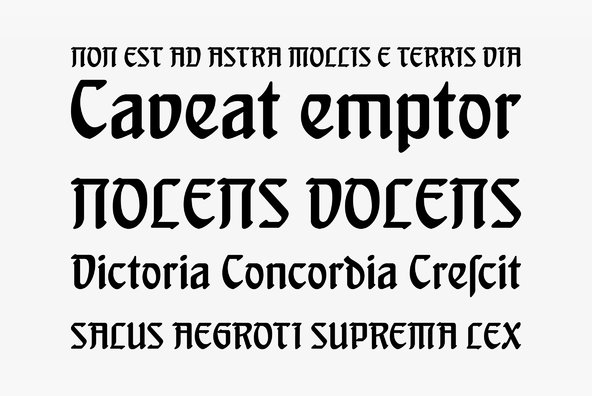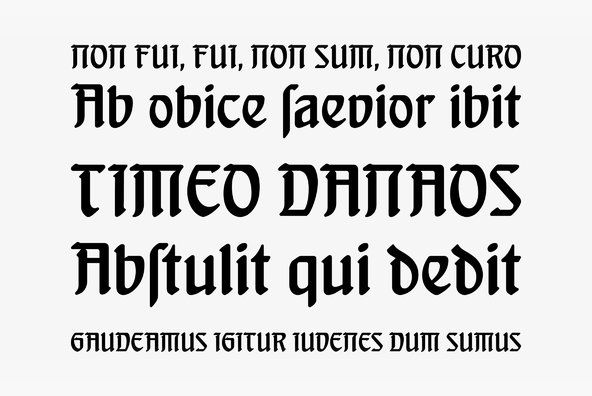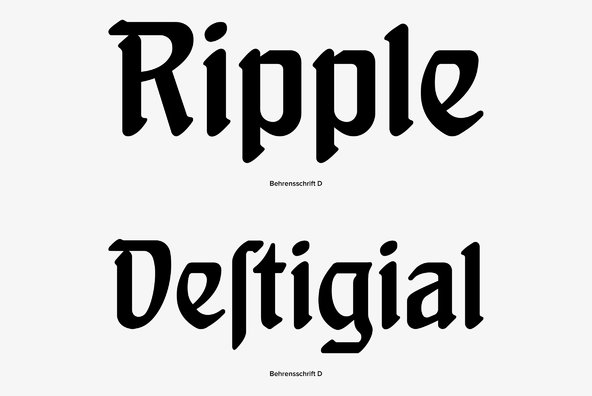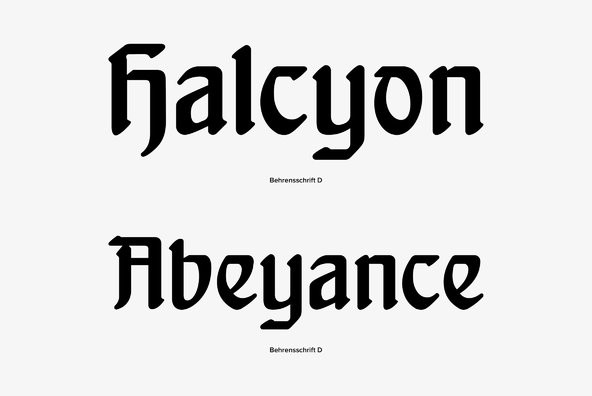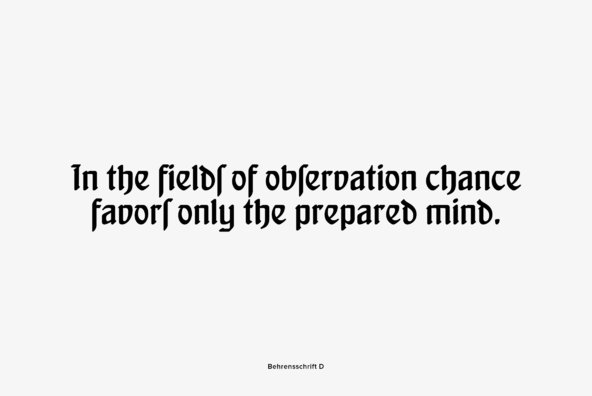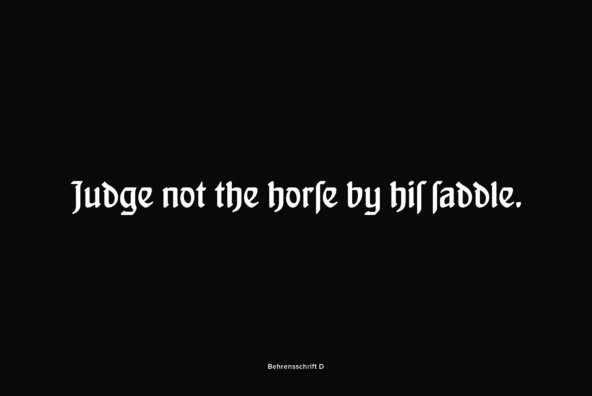
FontForum Behrens Schrift
FontForum Behrens Schrift is a decorative blackletter font based on the designs of Peter Behrens and Ralph M. Unger, released by URW.